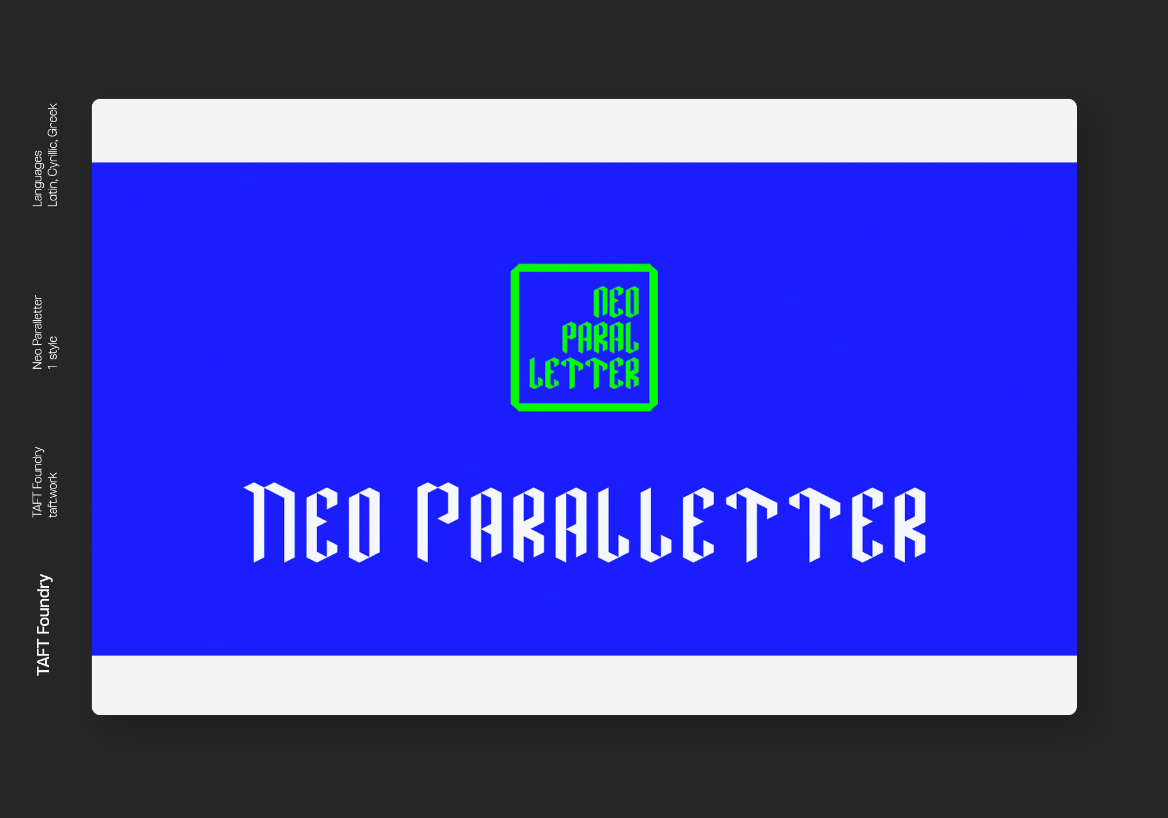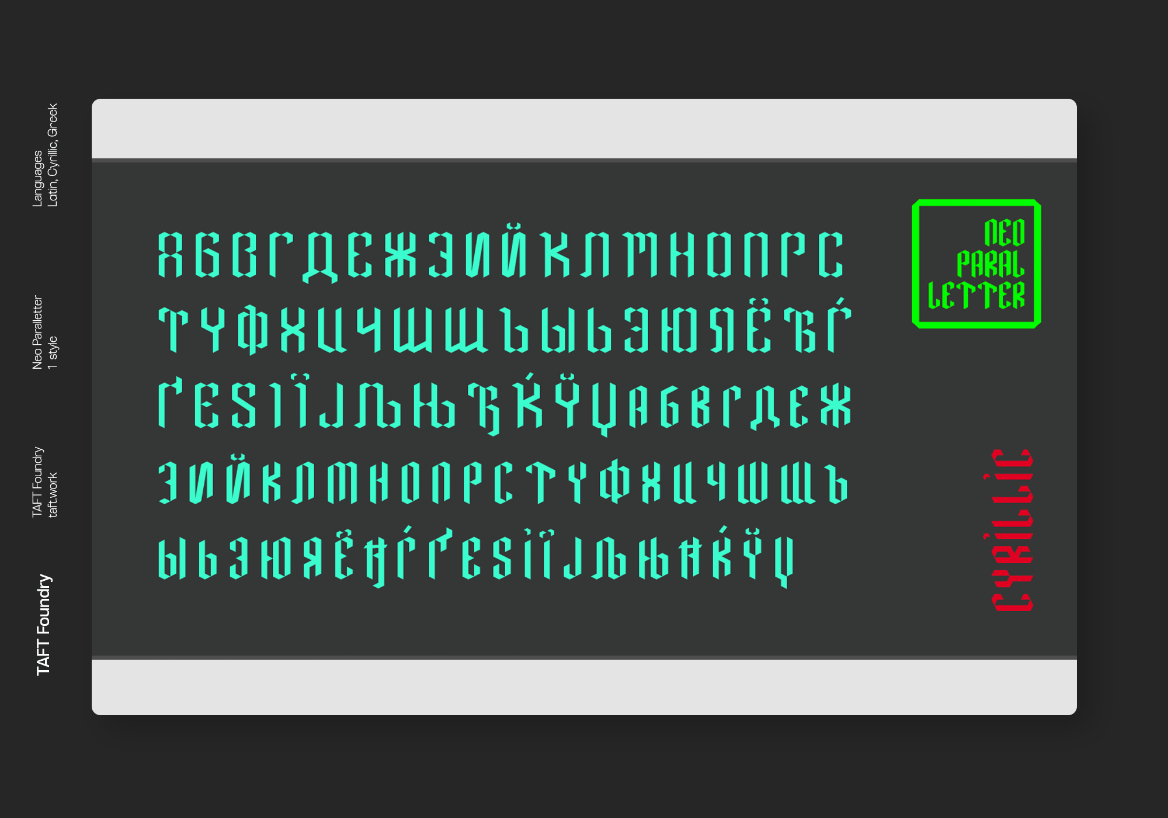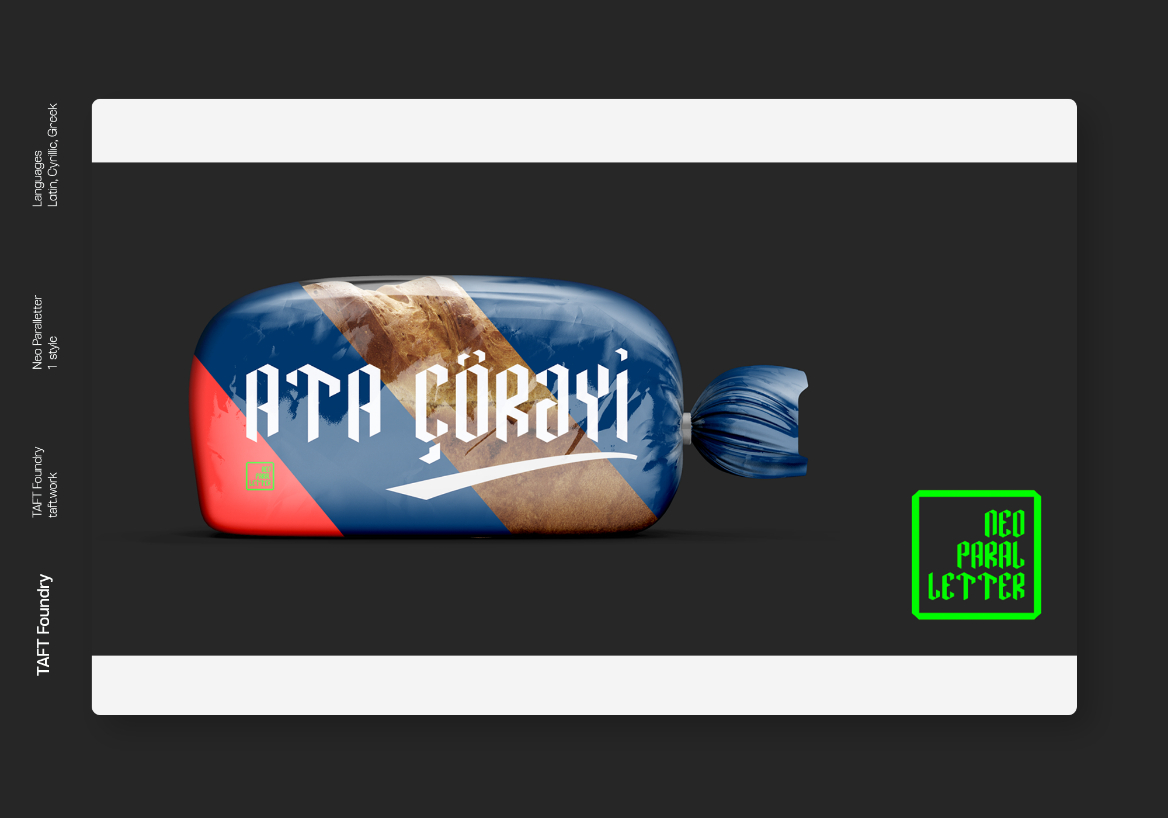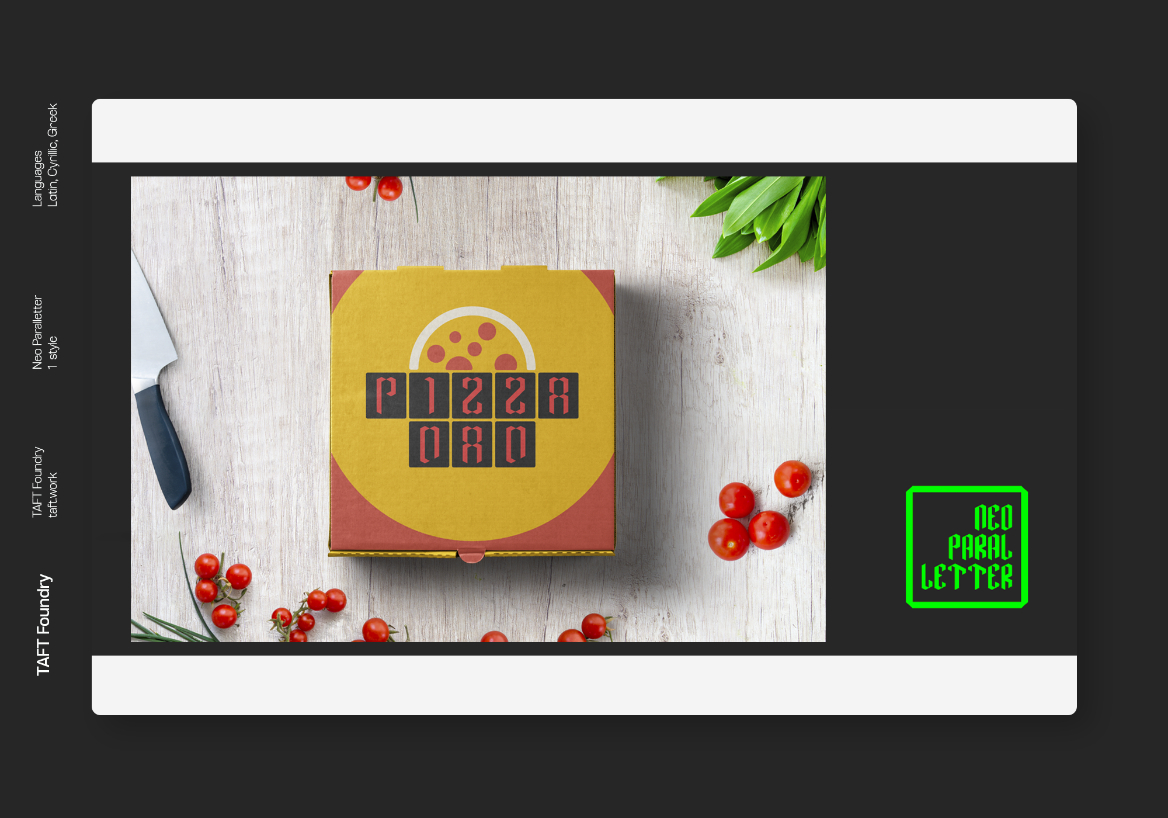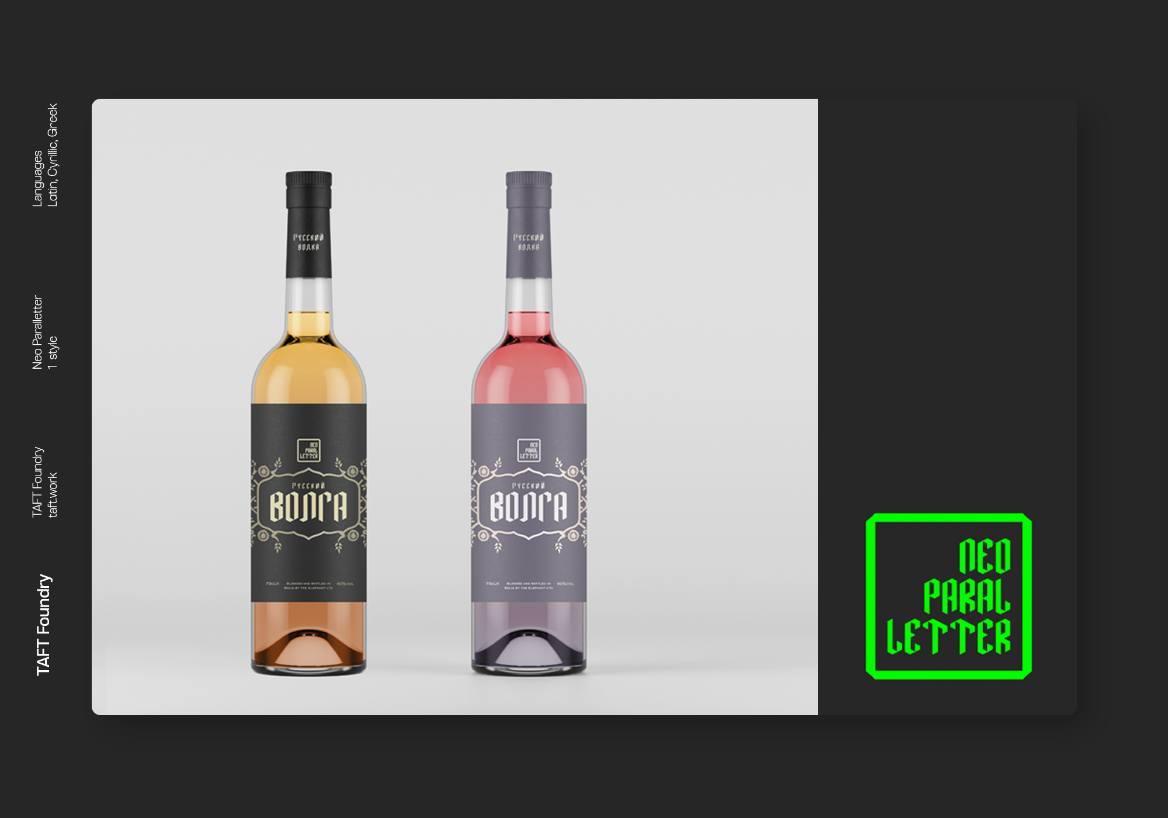
About Neo Paralletter Font
Neo Paralletter is a geometric modern blackletter typeface. Neo Paralletter is a combination of the boundaries between old and new, tradition and contemporary. This use is inspired by the art form that combines calligraphy, typography, and graffiti. You can use it as a logo, badge, packaging, headline, poster, t-shirt.